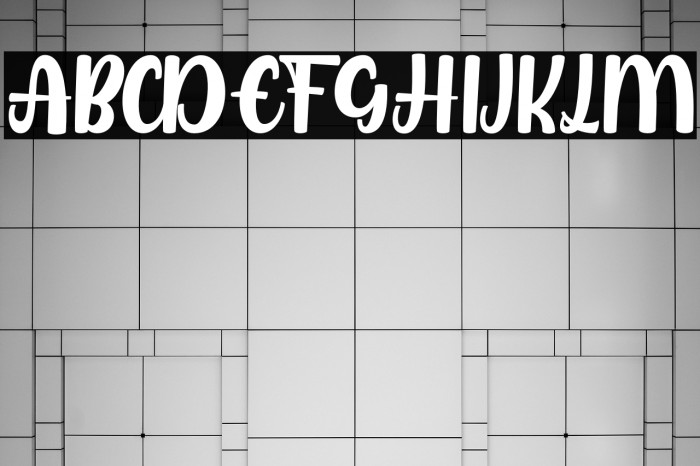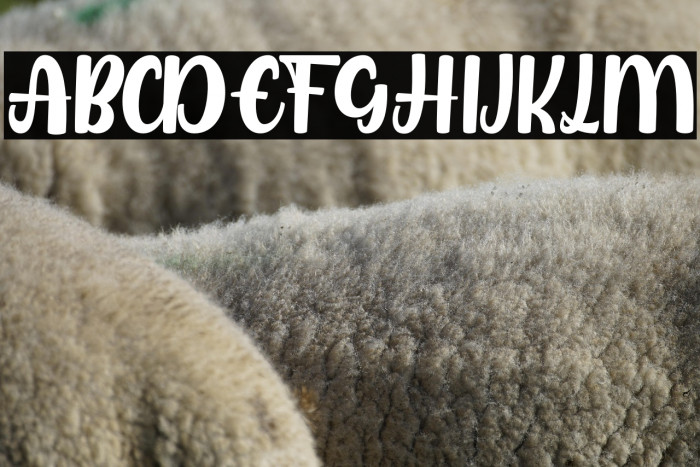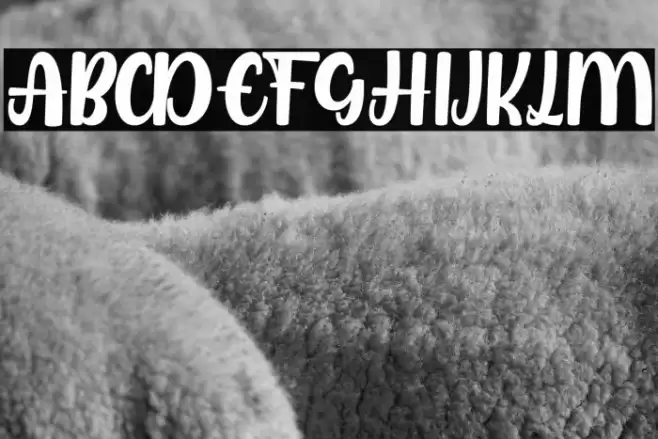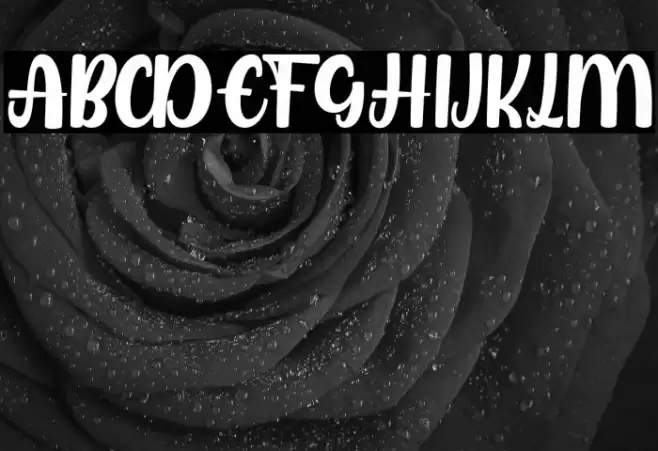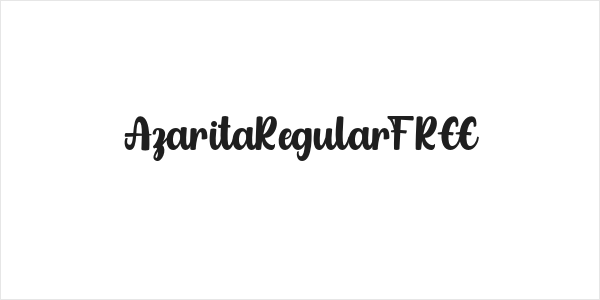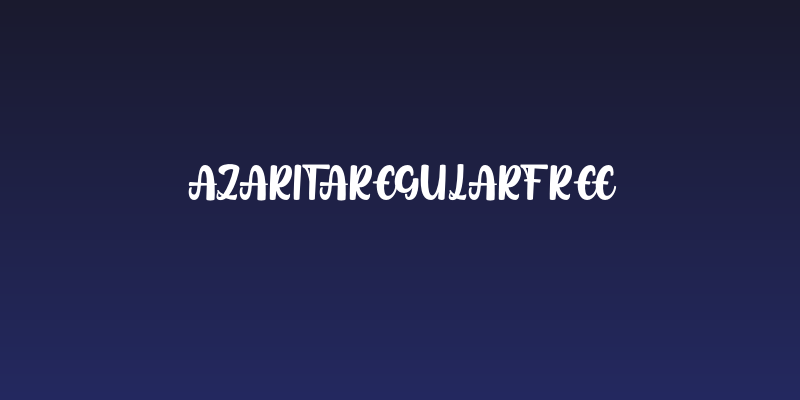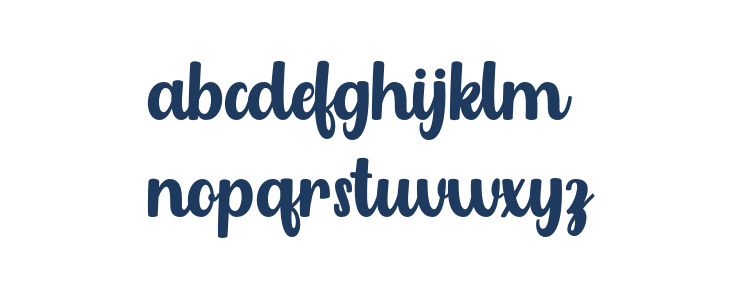
AzaritaRegularFREE Font
AzaritaRegularFREE Description
This font features a bold, playful script style with a modern twist. The characters are rounded and have a flowing, cursive appearance, giving them a lively and energetic feel. The uppercase letters are particularly distinctive, with unique loops and swirls that add a decorative touch. The lowercase letters maintain a consistent style, complementing the uppercase with their smooth curves and connected strokes. The numbers and special characters follow the same aesthetic, ensuring a cohesive look across all text. This font is ideal for projects that require a fun and engaging typeface.
| Proposed Projects | Ideal for greeting cards, invitations, playful branding, and social media graphics. |